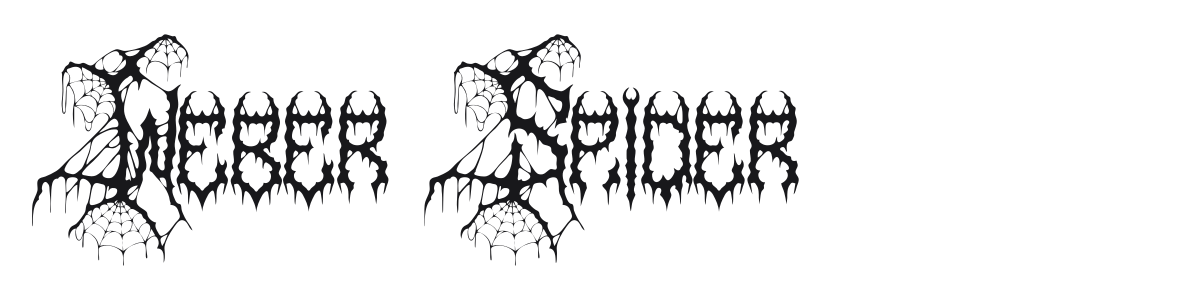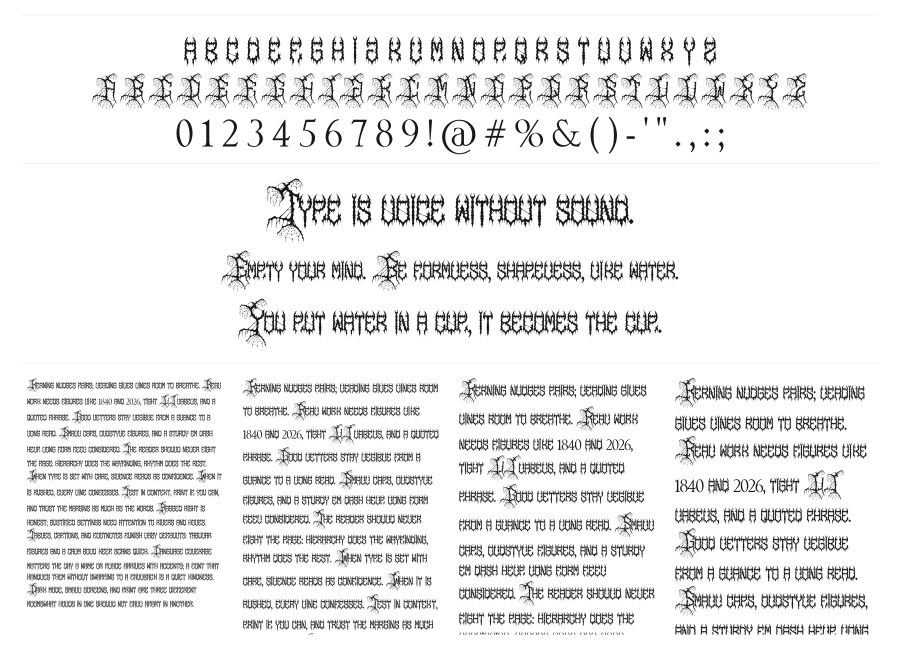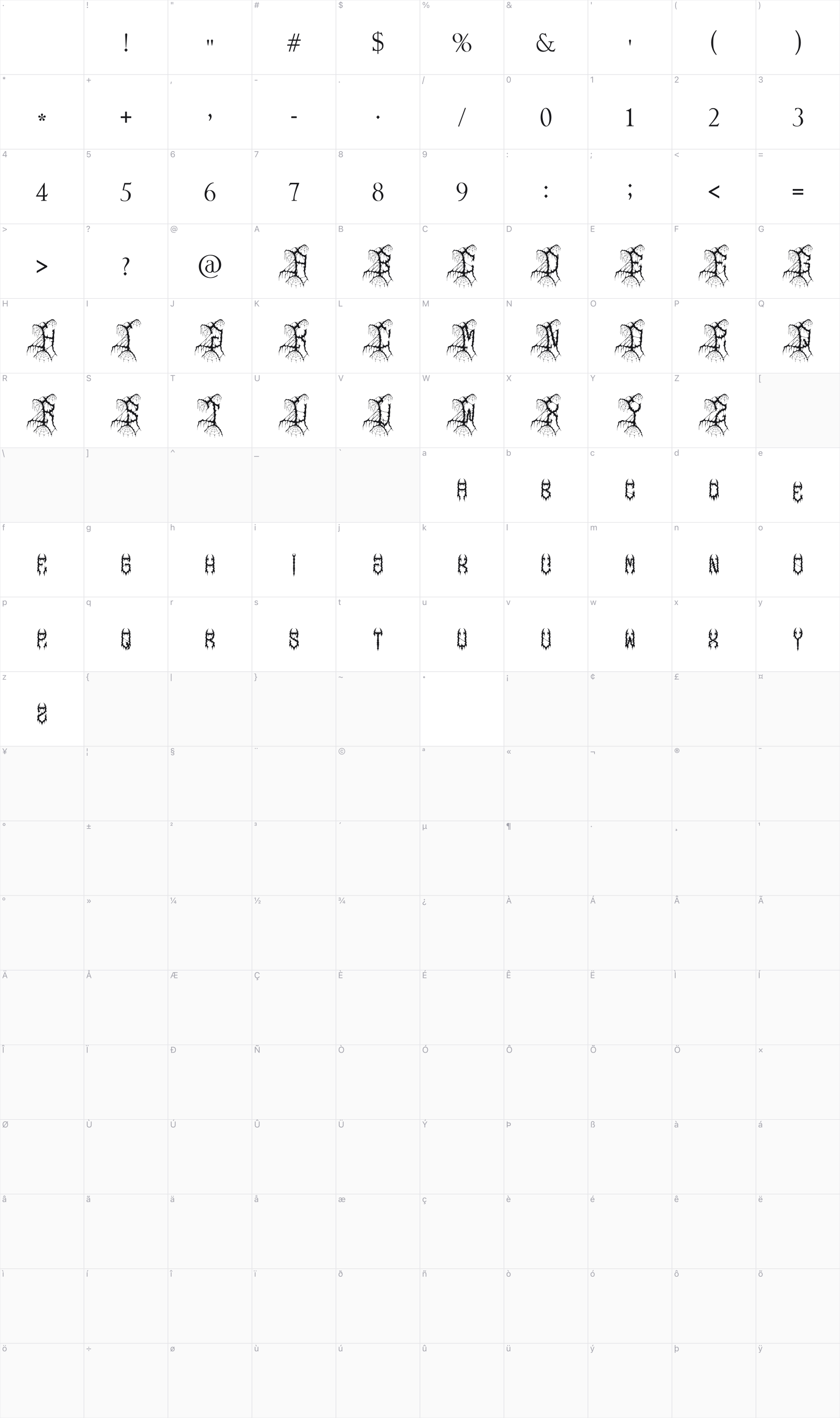
Weber Spider
Weber Spider is a death metal blackletter font built from spiky, fang-like forms that drip and claw at the edges of every character. The letterforms are dense and heavy, with ornamental spurs that evoke spider legs, flames, and Gothic grotesquerie all at once. It reads as a band logo before it reads as text, which is entirely the point.